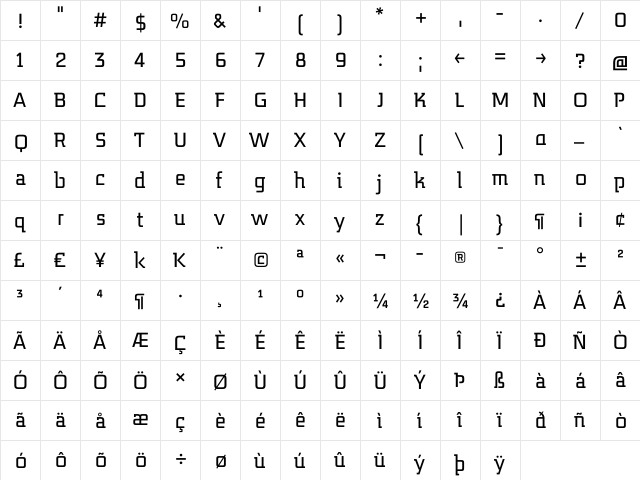
MidnightKernboy Regular
Design Context for MidnightKernboy Typeface
MidnightKernboy takes a measured approach to typography — its balanced proportions and neutral character make it a reliable workhorse for both digital and print work.
Pro Tip: Pair MidnightKernboy with a font of contrasting weight or personality to build a more expressive typographic hierarchy.